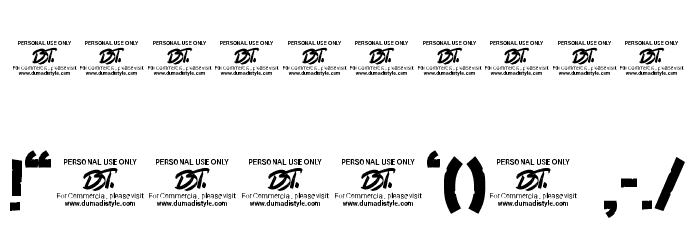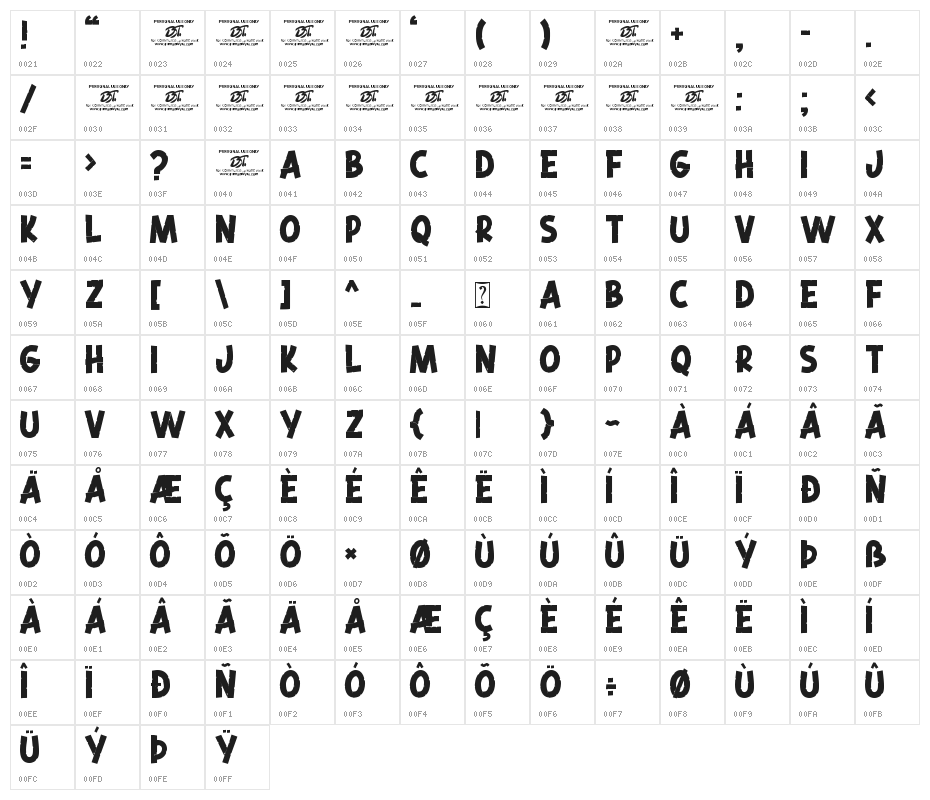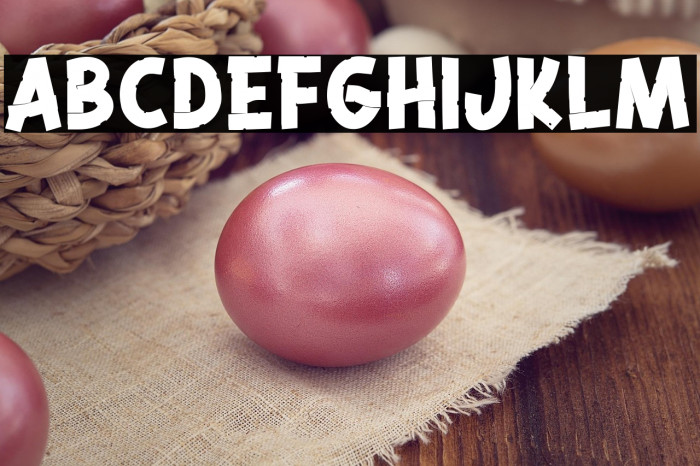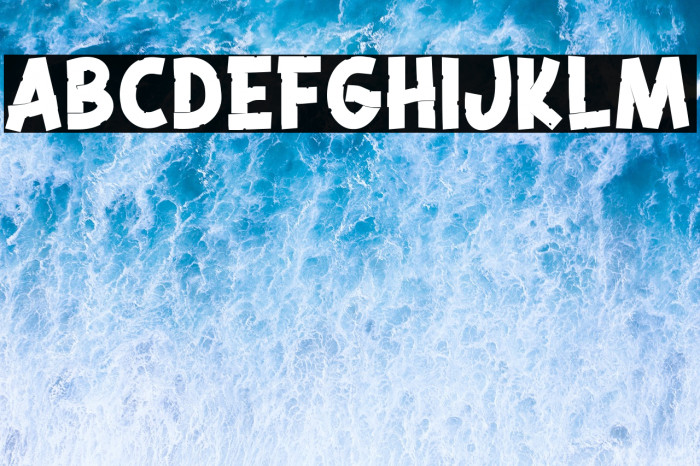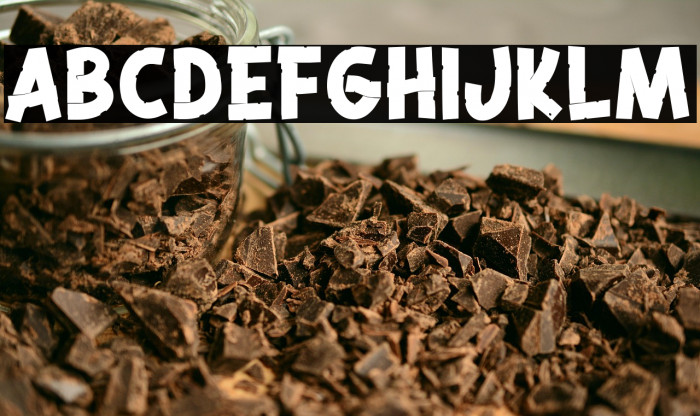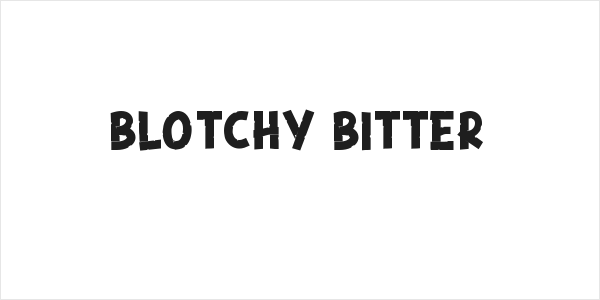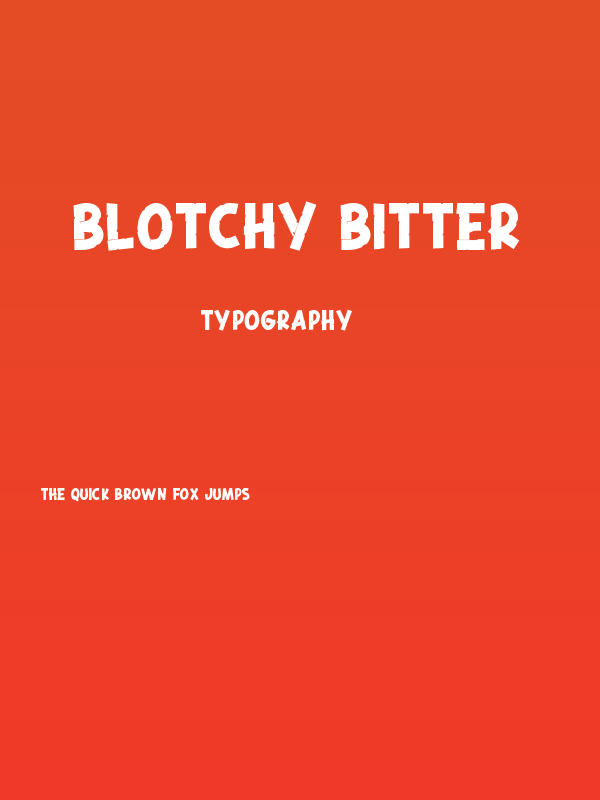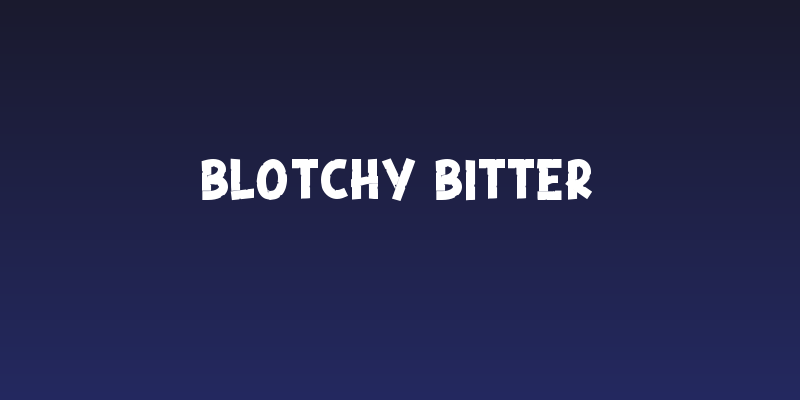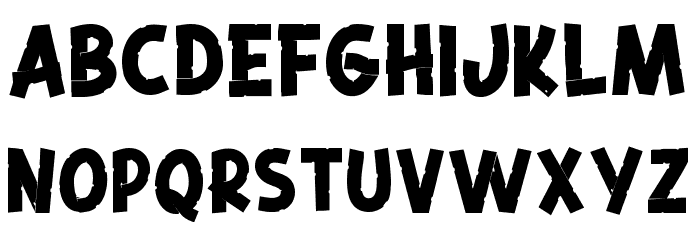
Blotchy Bitter Font
Blotchy Bitter Description
This font features a bold and playful design with a slightly distressed appearance, giving it a unique, hand-crafted feel. The characters are thick and robust, with uneven edges that add to its quirky and informal style. The uppercase and lowercase letters maintain a consistent weight, while the numbers and special characters follow the same design ethos, ensuring uniformity across all elements. Its boldness and irregularity make it stand out, ideal for projects that require a touch of creativity and individuality.
| Overall Style | Playful, Quirky, Hand-crafted |
| Proposed Projects | Ideal for posters, children's books, creative branding, and playful packaging designs. |